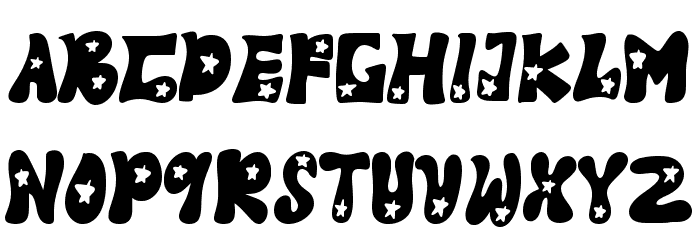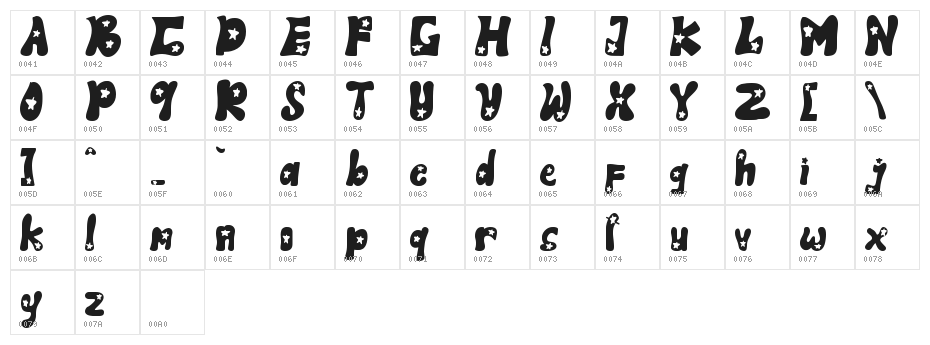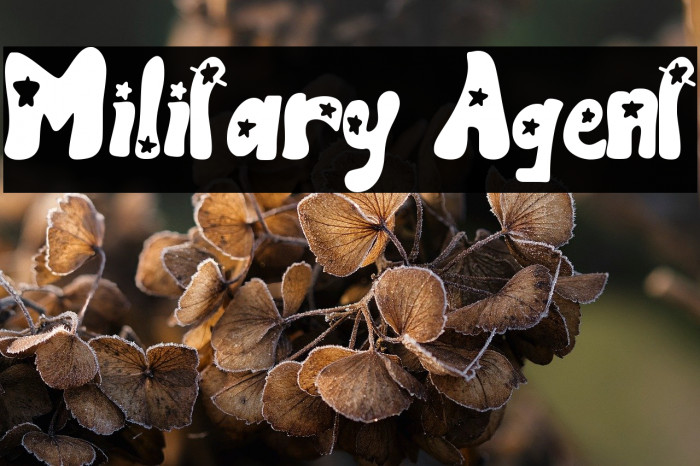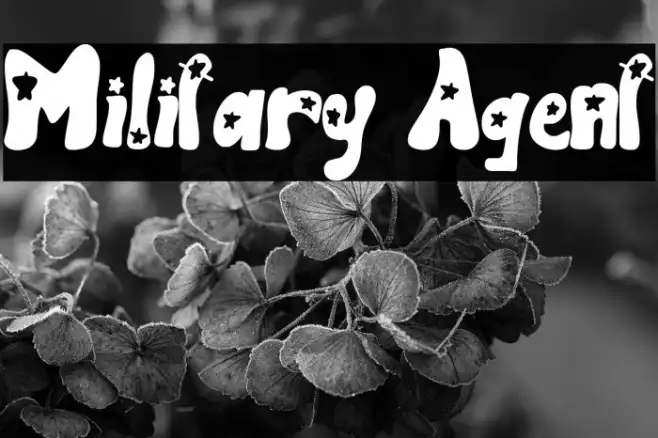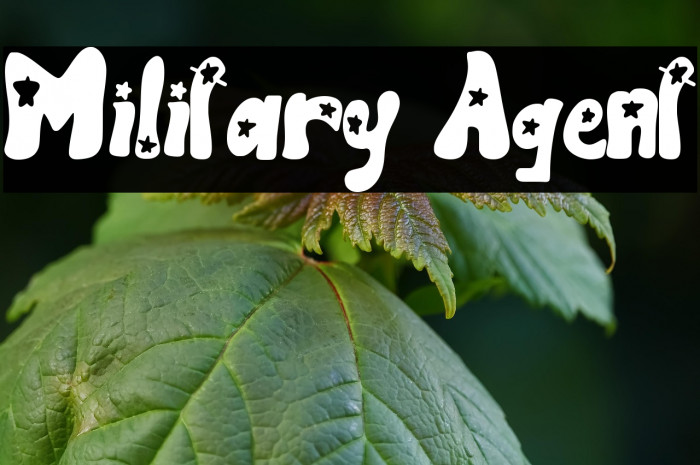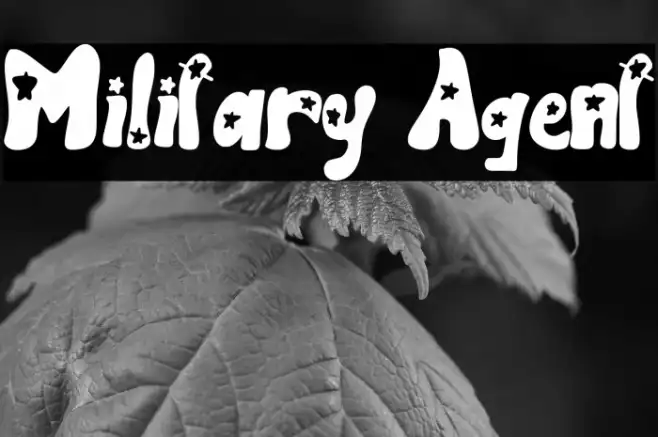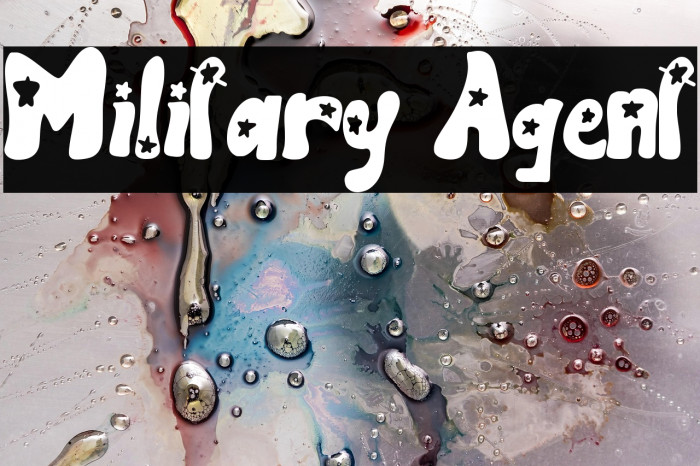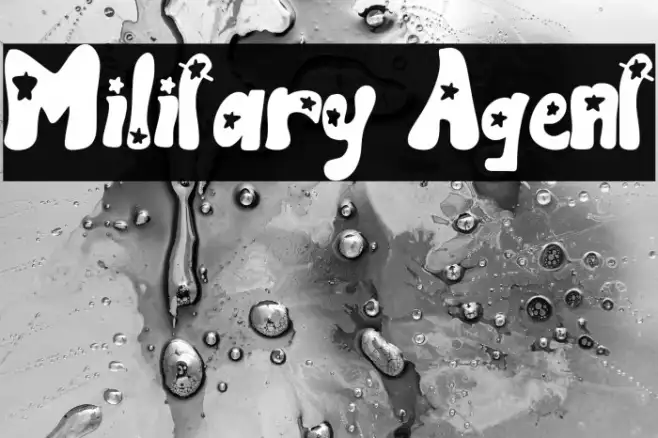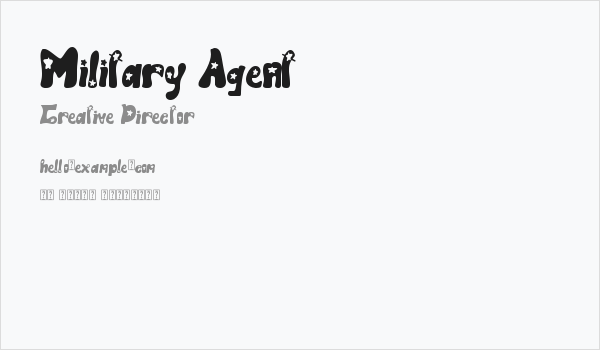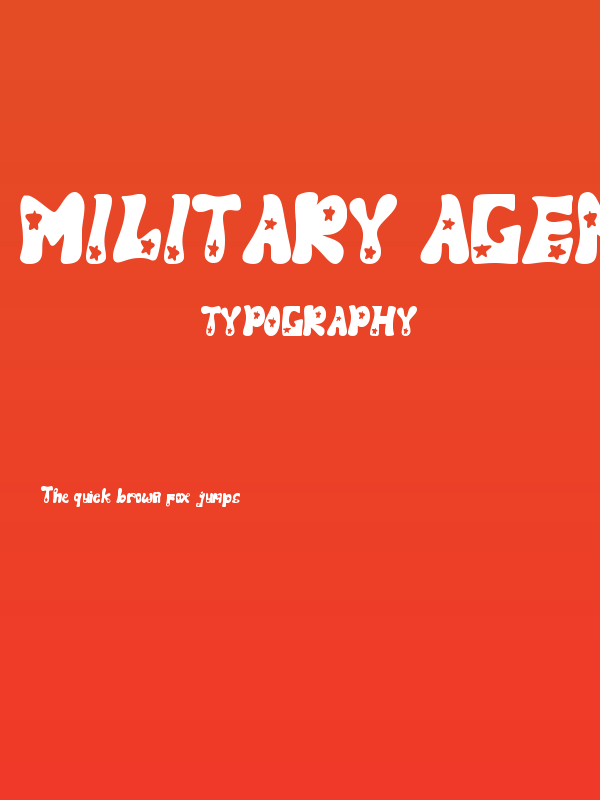
Military Agent Font
Military Agent Description
This font features bold, playful characters with a distinctive military-inspired design. Each letter is adorned with star cutouts, adding a decorative and thematic touch. The characters are rounded and robust, giving a strong visual impact. The uppercase and lowercase letters maintain a consistent style, with the star motif present throughout. The numbers and special characters also follow this design, ensuring uniformity across all glyphs. This font is ideal for projects that require a bold and thematic display, such as posters, banners, or themed events.
| Proposed Projects | Ideal for military-themed posters, event banners, children's party invitations, and decorative headlines. |